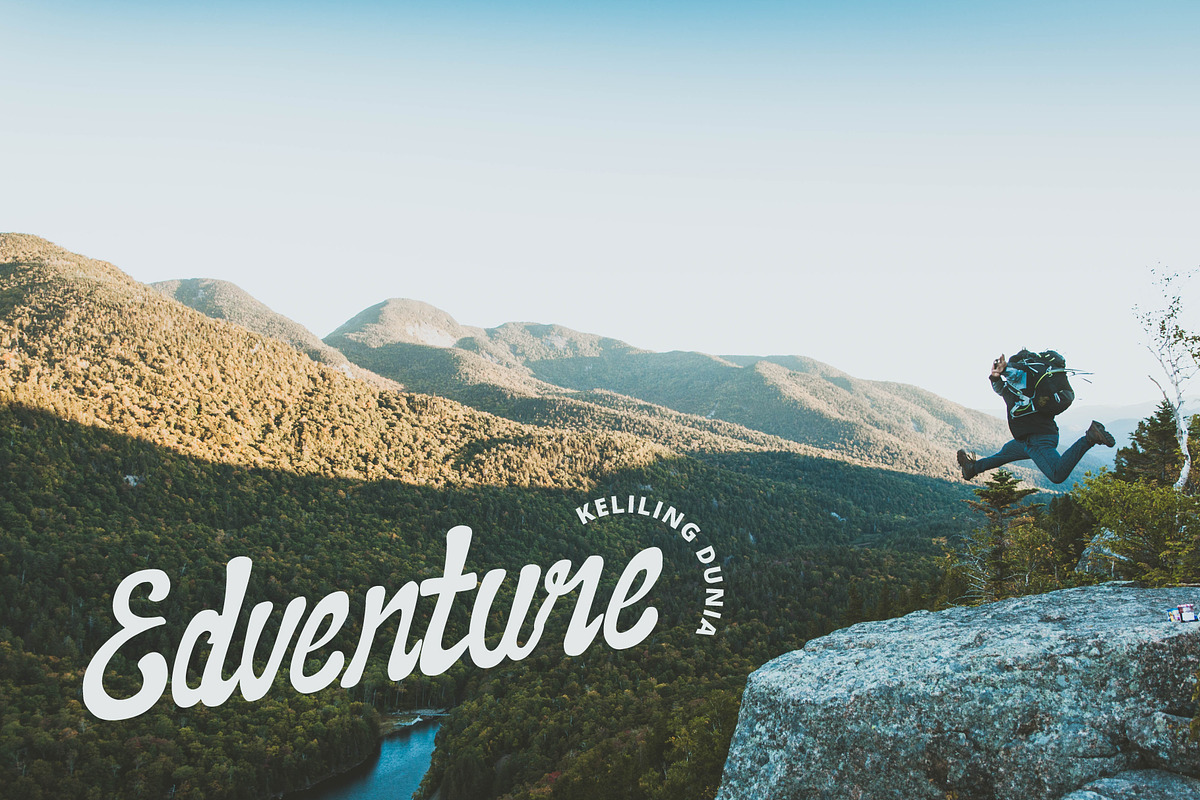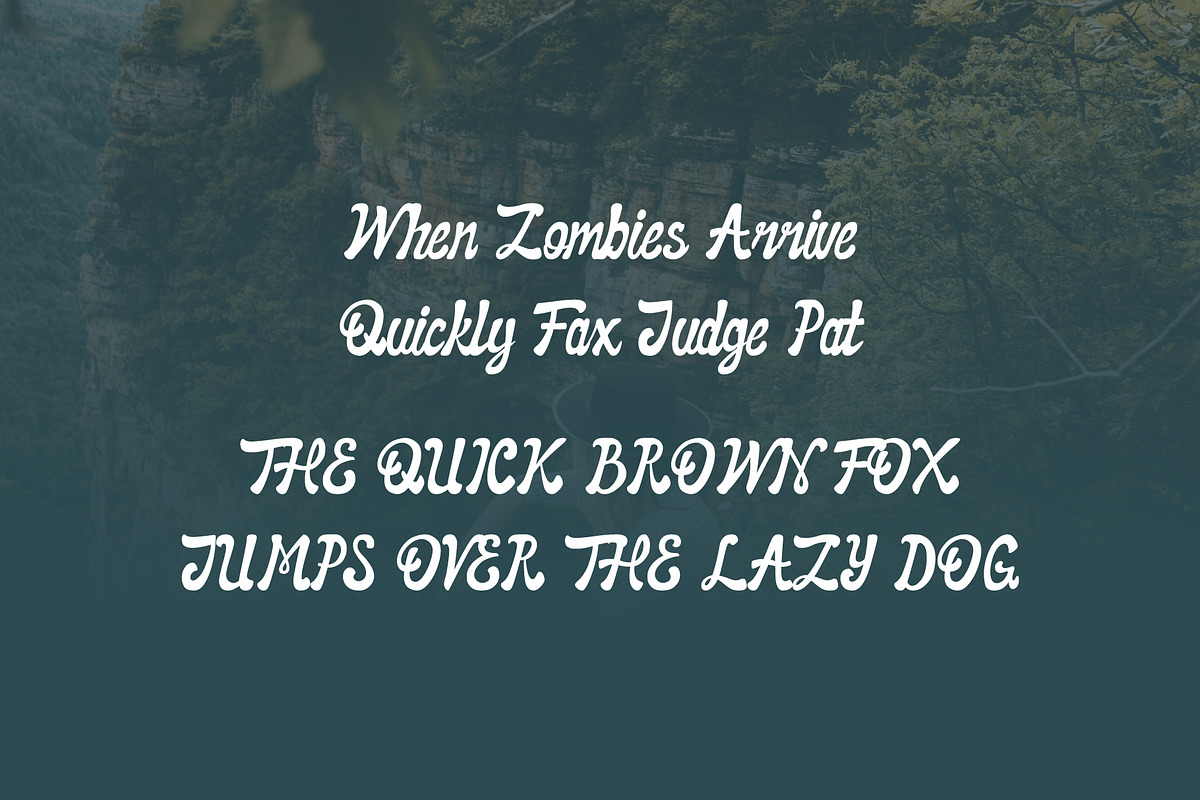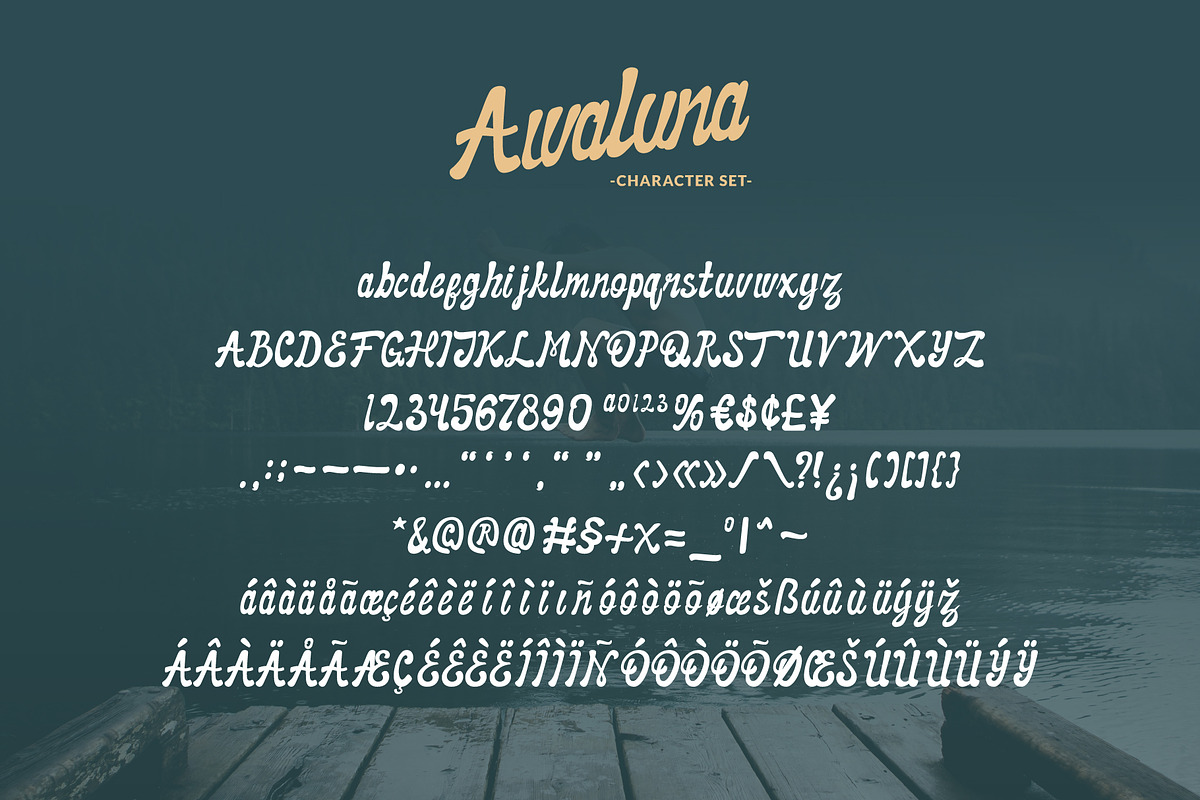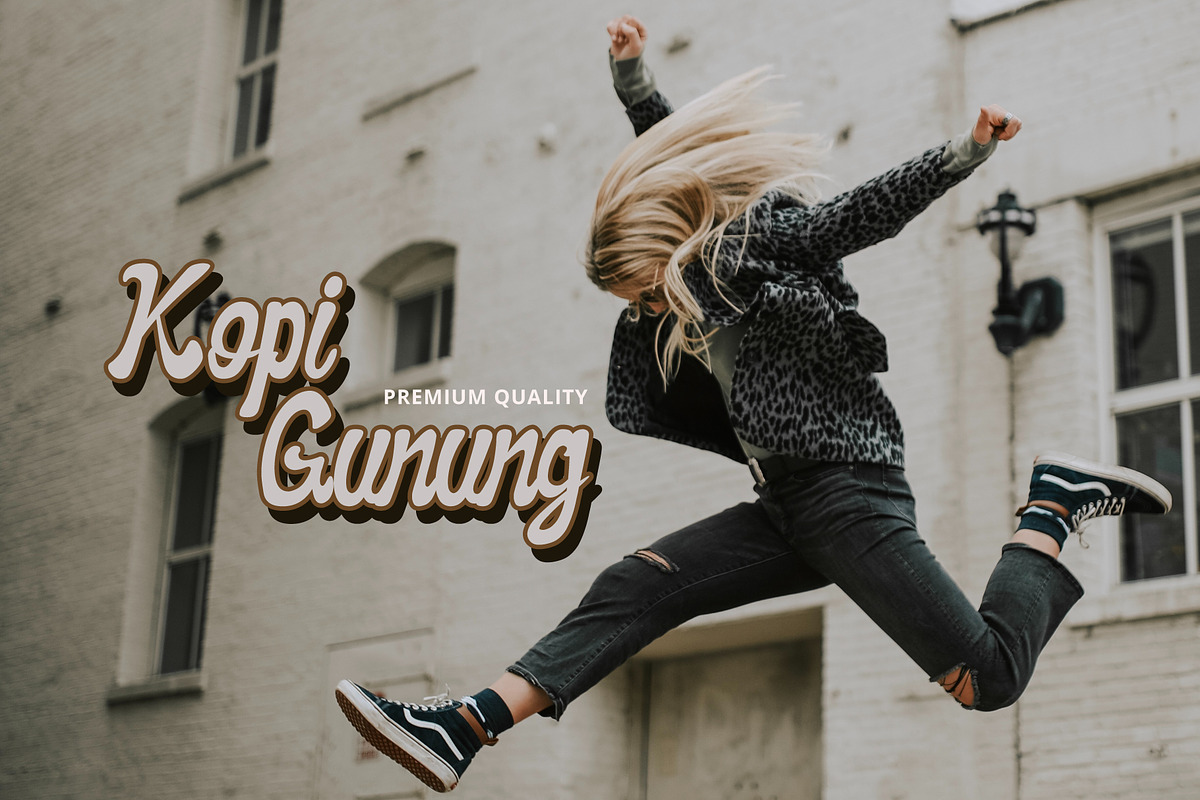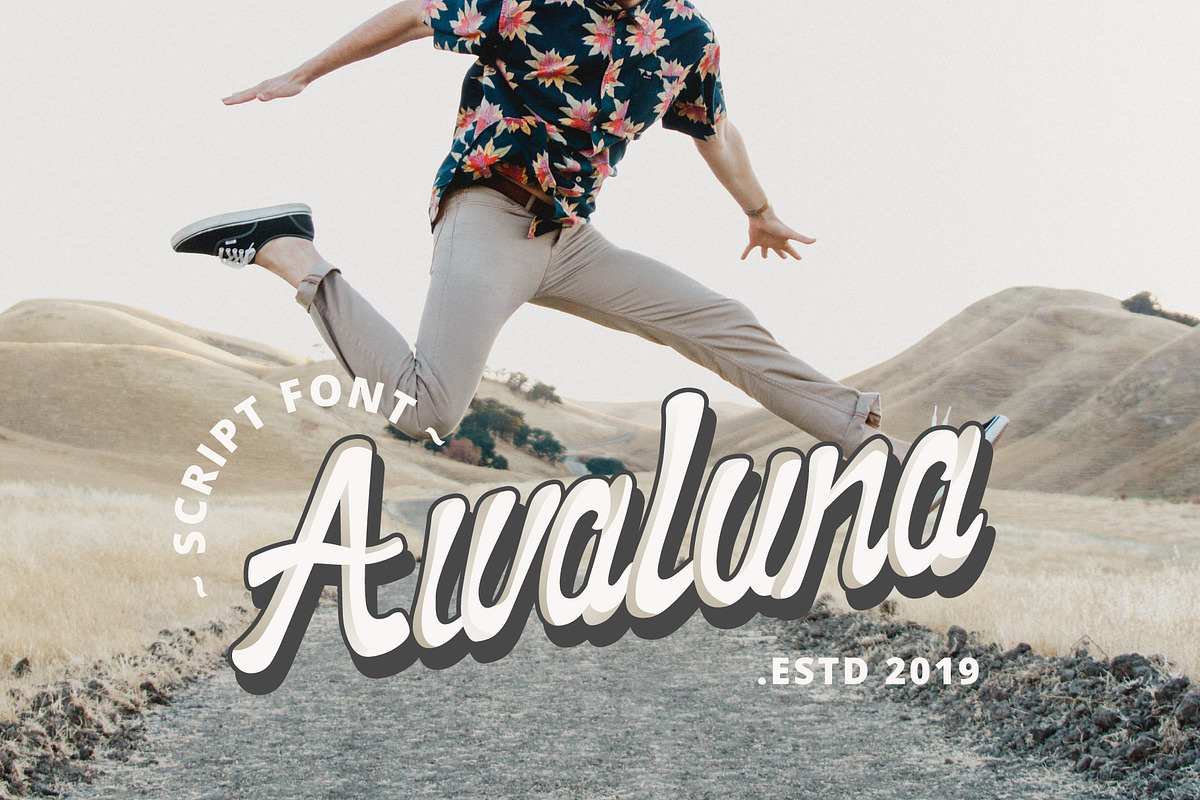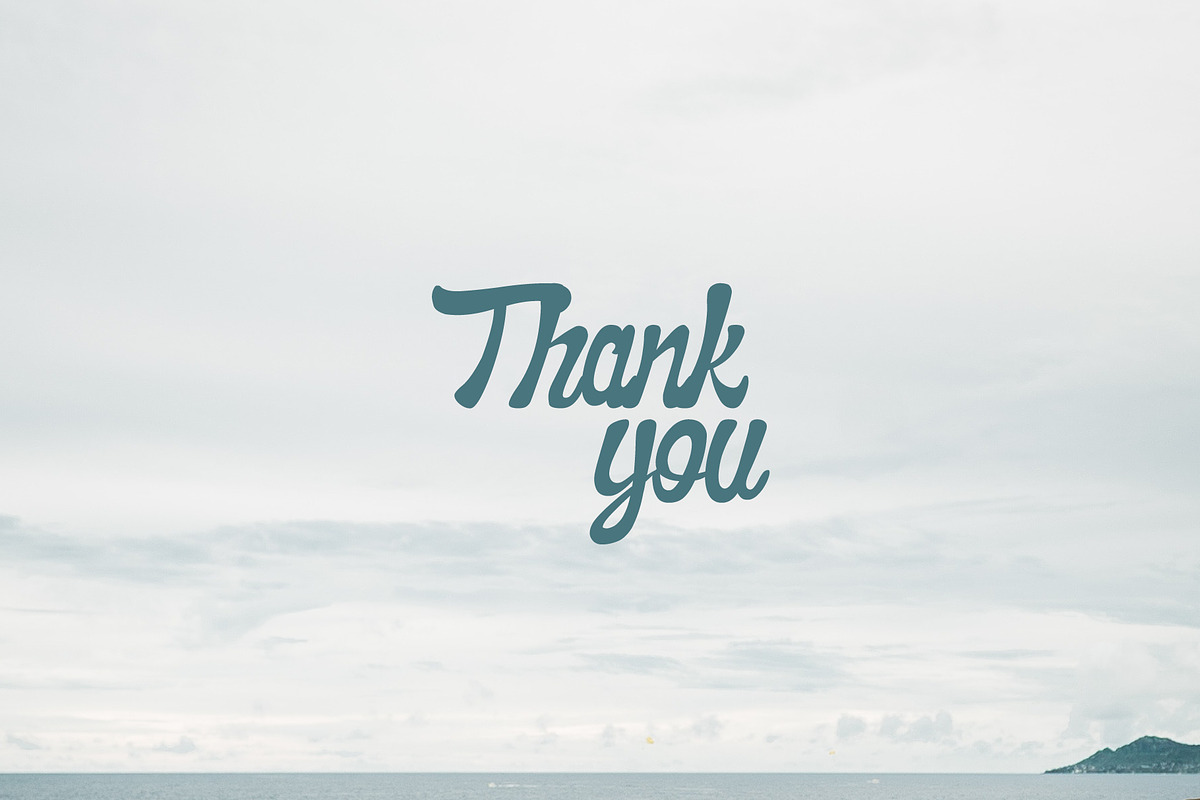
Awaluna Font
This font is ideal for branding and decorate your any project, are perfect for wedding invitation. Also with their help, you can create a logo or beautiful frame for your home. Or just use for your small business, book covers, stationery, magazines and more.
Why Awaluna Font is worth a look
Awaluna Font by Dankudraw fits naturally into Branding, posters, packaging, typography.